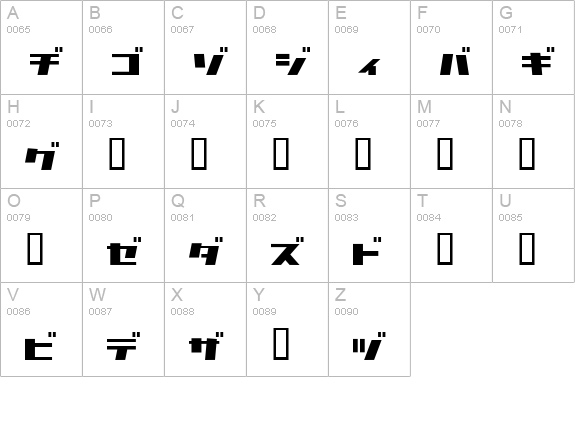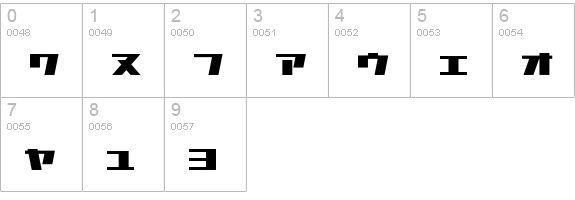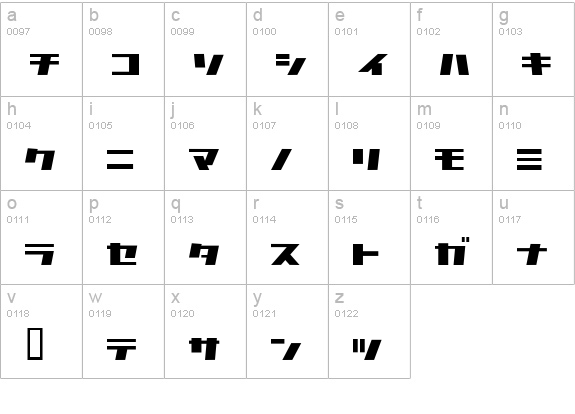
Commercial break Font Details
Introducing Commercial Break Font, a sleek and modern typeface designed to make your designs stand out. This versatile font is perfect for advertising, branding, packaging, and more. With its clean lines and bold appearance, Commercial Break Font is sure to grab attention and leave a lasting impression. What sets Commercial Break Font apart is not only its striking design but also the fact that it is available for free download at FontsMarket.com. Yes, that's right - you can elevate your projects with this dynamic font without spending a dime. Don't miss out on this incredible opportunity to enhance your designs with Commercial Break Font. Download it today and start creating eye-catching visuals that will captivate your audience.